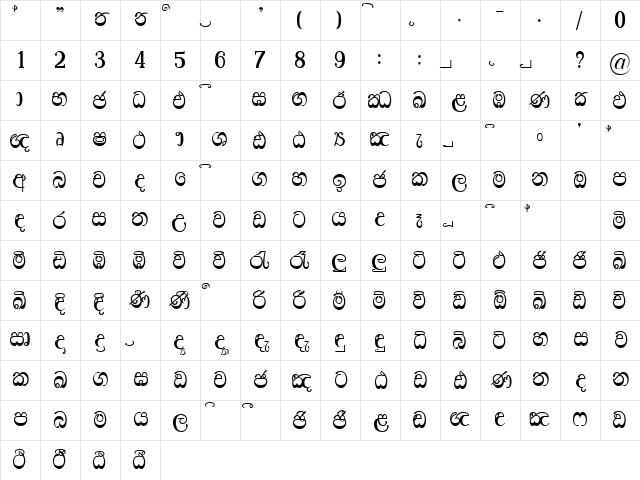
Maya Normal Free Font
Maya Normal
Maya Family
Design Context for Maya
Maya is a composed and adaptable typeface that performs quietly and consistently across a wide range of design contexts.